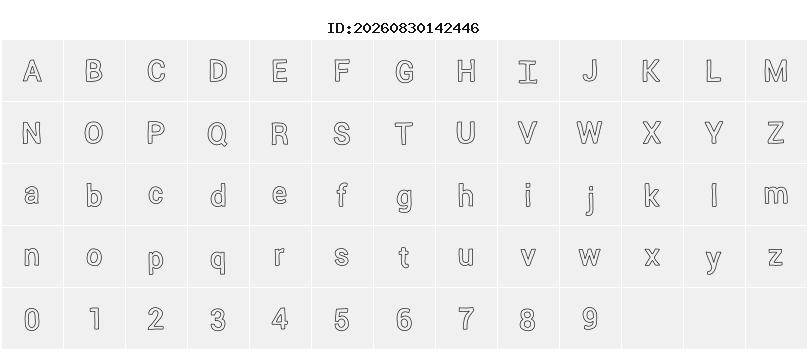
• Font Name: The Outline
• Full Font Name: The Outline
About The Outline.ttf
The Outline.ttf is a modern, elegant sans-serif font designed for ultimate readability and visual harmony. Perfect for branding, headlines, web design, and print materials.